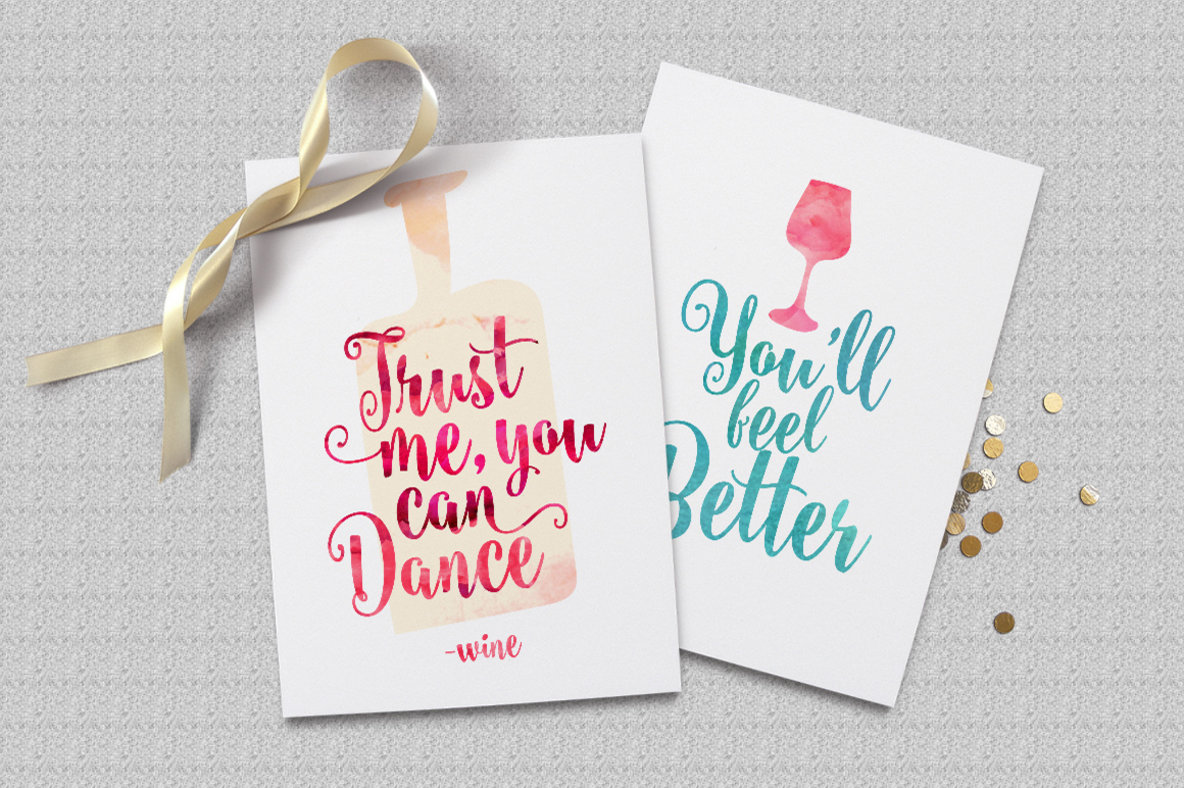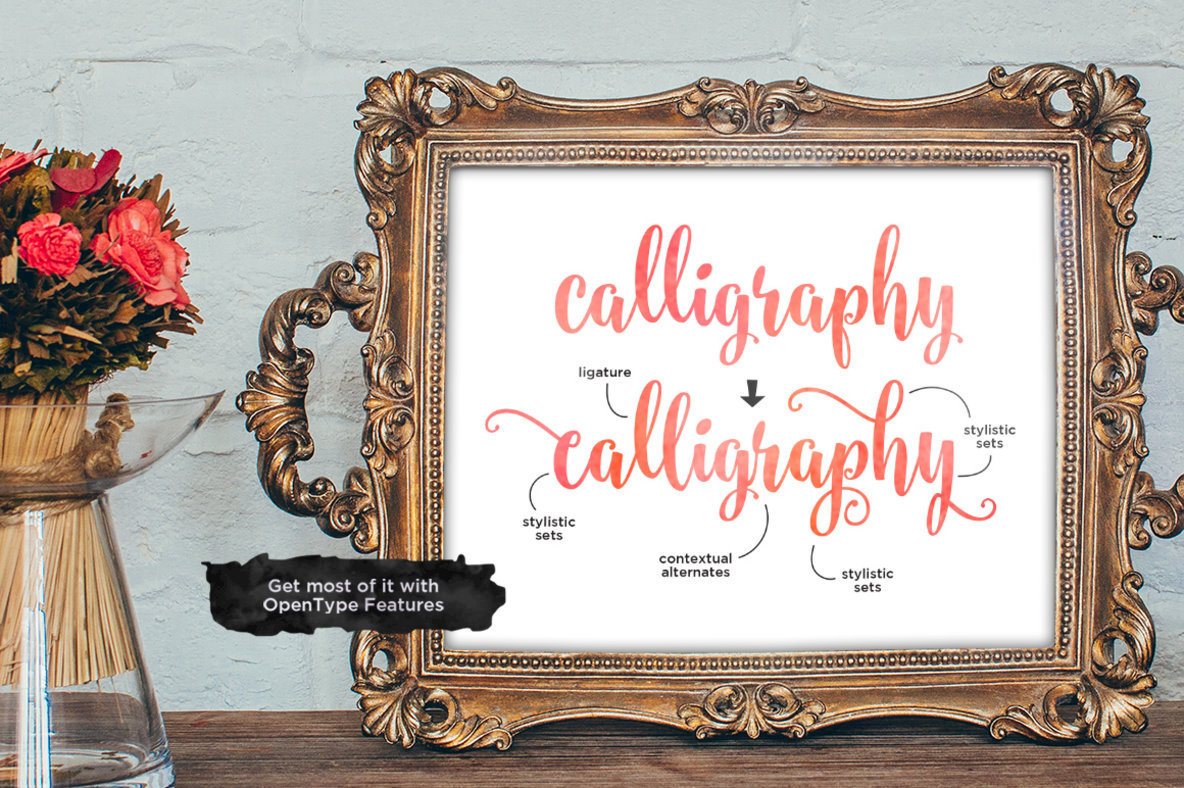
Steelheart Font
Steelheart
Steelheart is a modern calligraphy typeface with a dramatic movement. It suitable for wedding invitation, greeting cards, watercolor based design, or anything that need natural feeling to put on to.
Steelheart font comes with a complete set of standard characters, eastern diacritic symbols, 350 glyphs in total, and 181 alternative characters as OpenType features to play with. The alternative characters were divided into several OpenType features such as Ligature, Contextual Alternates, and Stylistic Sets. You can create an attractive message by using the alternate characters in your design.